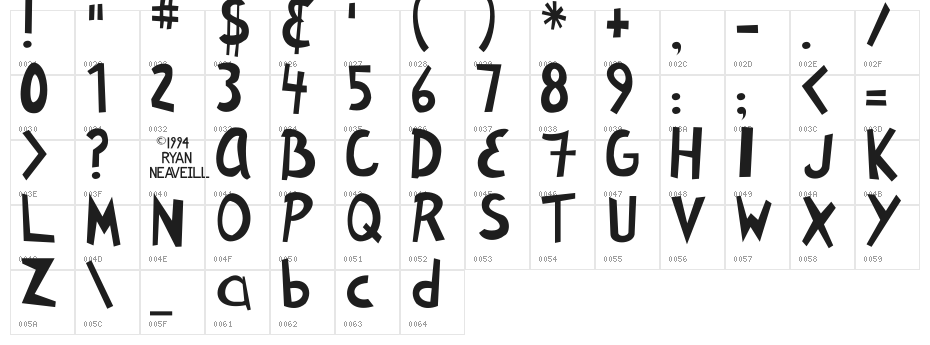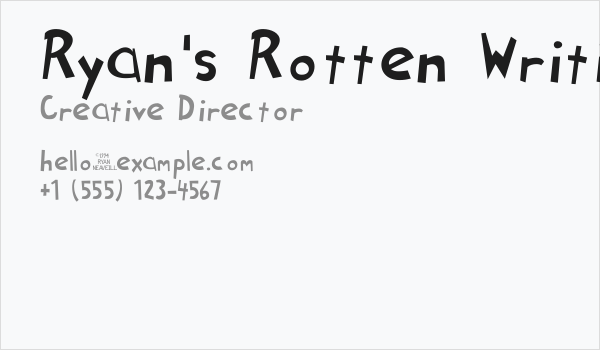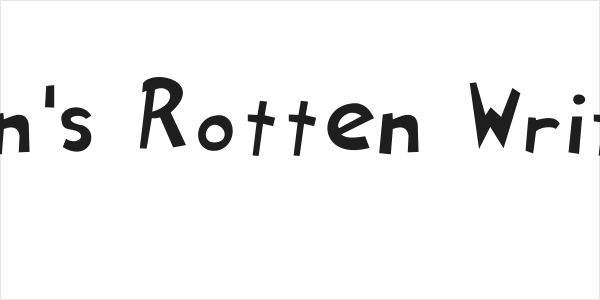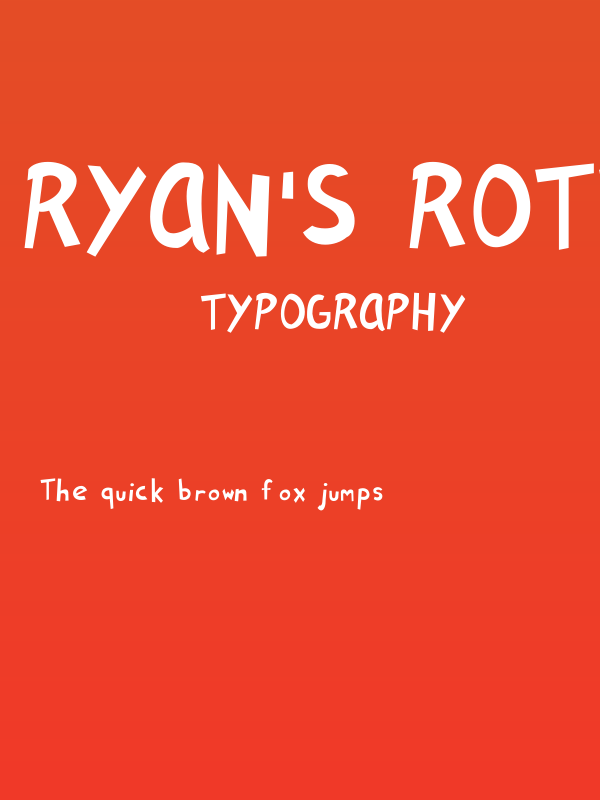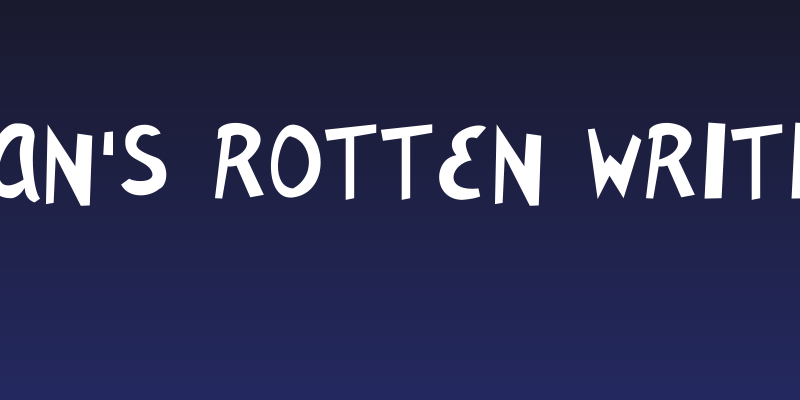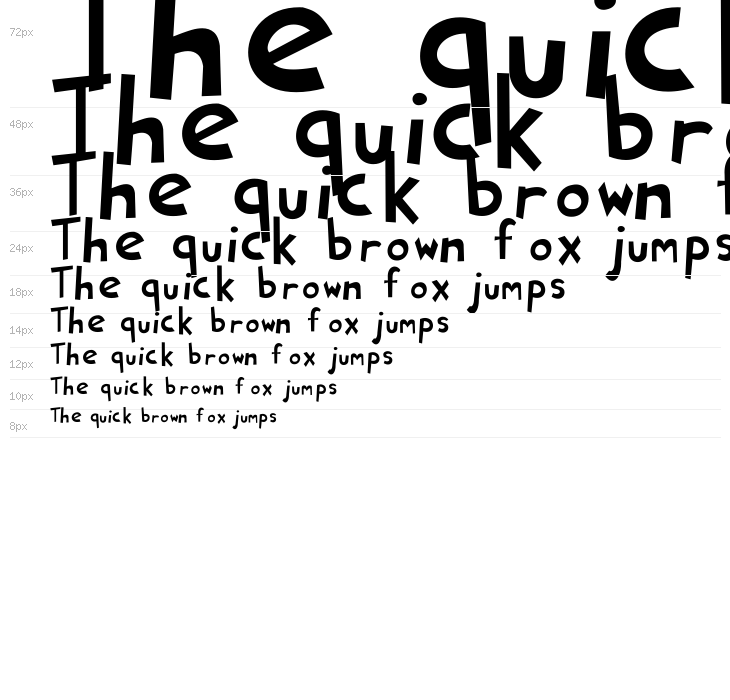
Ryan's Rotten Writing Font
Ryan's Rotten Writing Description
This font exhibits a playful and quirky style with its irregular, hand-drawn appearance. The characters are bold and slightly uneven, giving them a whimsical and informal look. The uppercase letters have a distinct, exaggerated form, while the lowercase letters maintain a consistent yet quirky style. Numbers and special characters follow the same playful design, making the font suitable for creative and fun projects. The overall style is reminiscent of hand-drawn or comic lettering, with a unique charm that stands out.
| Proposed Projects | Ideal for children's books, comic strips, playful branding, and creative posters. |